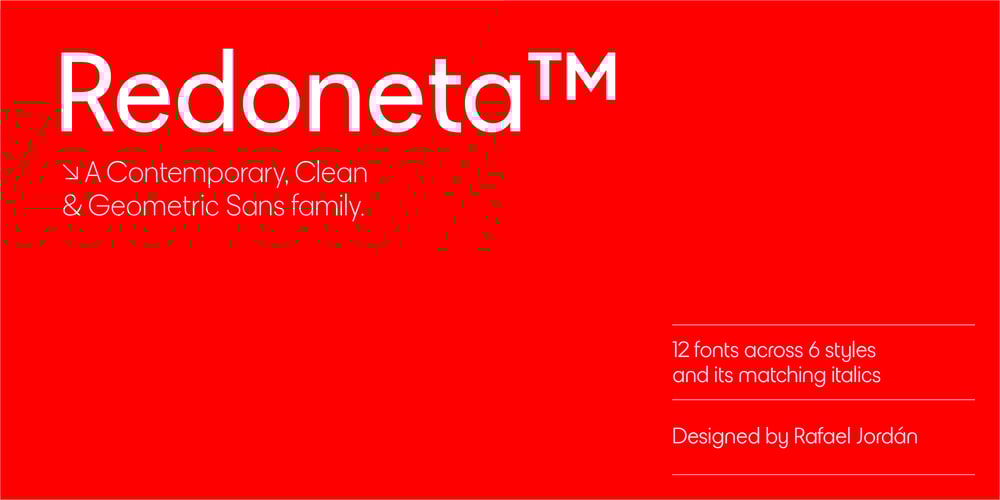
Redoneta
Redoneta font
Redoneta Font Family was designed by Rafael Jordán and published by Rafael Jordan. Redoneta contains 10 styles and family package options. Redoneta™ is a contemporary geometric sans serif family of 6 weights with its matching italics. From a refined Thin to a solid Regular and a forceful Bold gives us multiple voices and uses according its multipurpose vocation. Also, its smooth and clean shapes gain more personality with his alternates: from rounded to square and angular forms across 7 combinable stylistics sets. Dozens of Latin languages supported and other OpenType features as fractions, superscript, subscript, tabular figures, arrows and more give useful tools to the user for editorial design, web or others intensive uses.